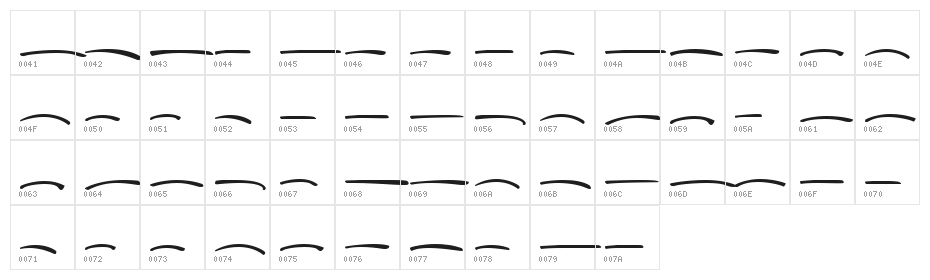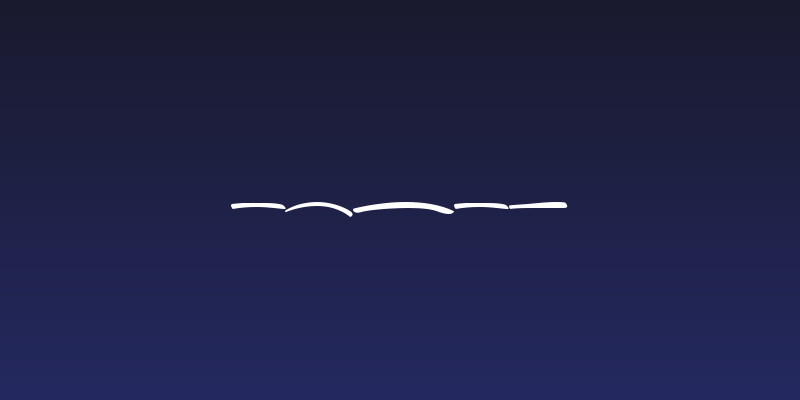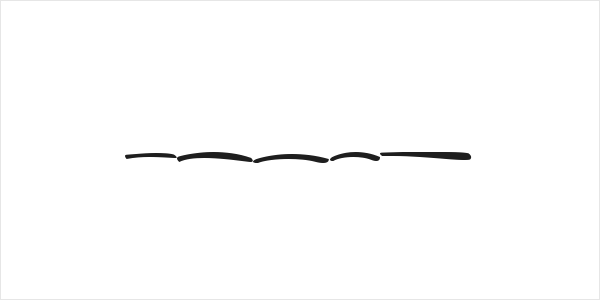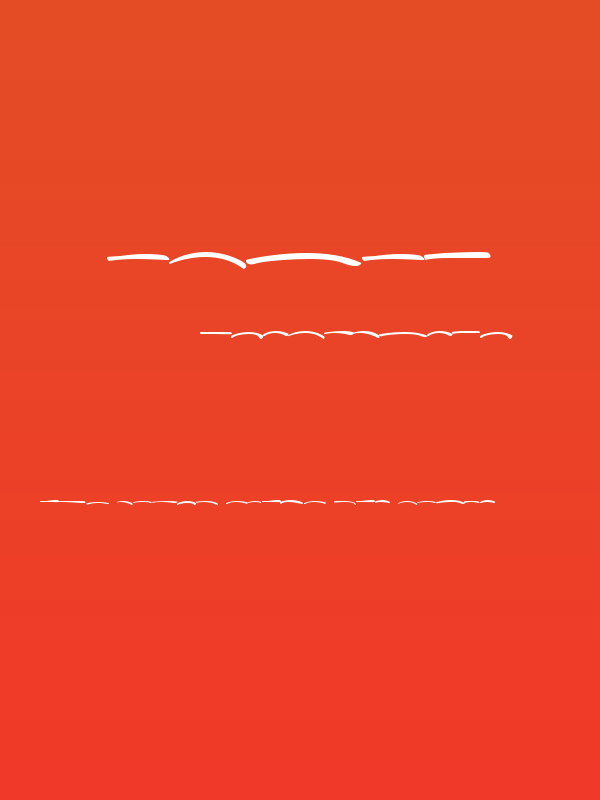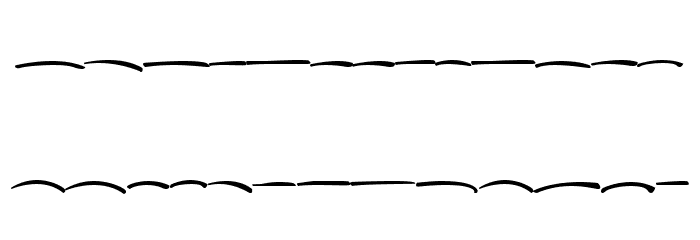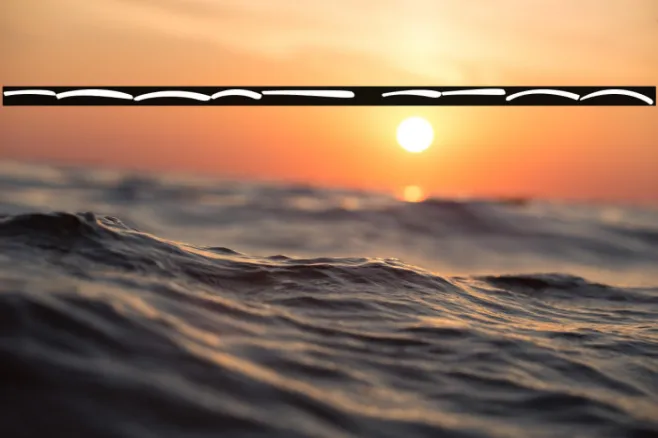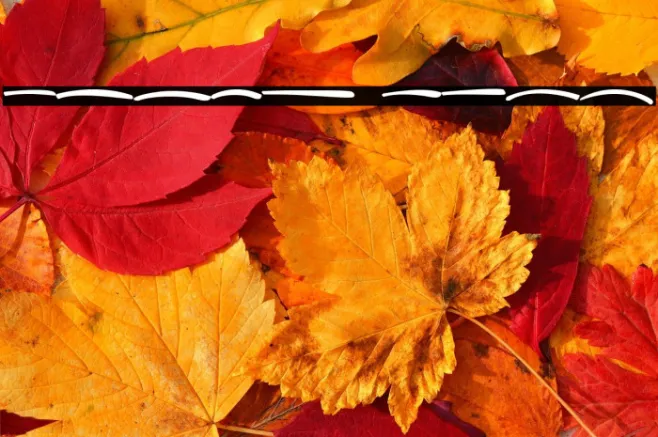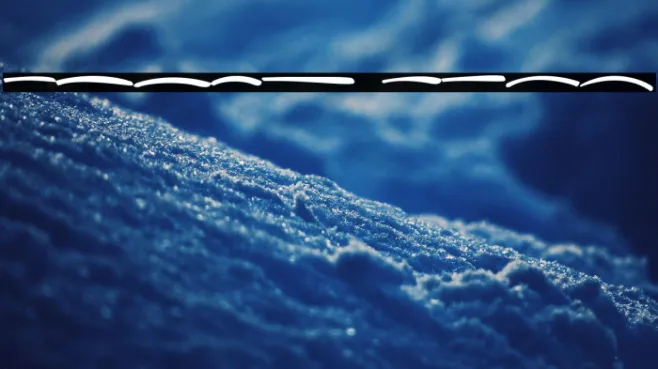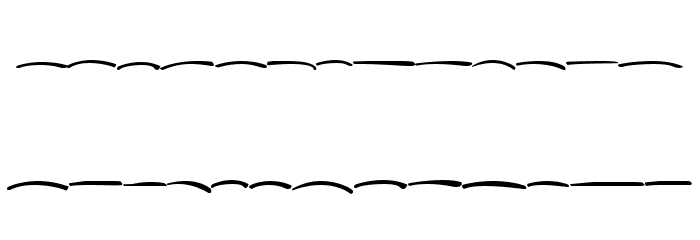
Swash Font
Swash Description
This design features a series of elegant, flowing lines that mimic the appearance of a swash, often used in calligraphy and decorative typography. The lines have a smooth, continuous flow with gentle curves and a consistent thickness, creating a sense of movement and grace. The overall appearance is both artistic and refined, making it suitable for decorative purposes. The design lacks distinct letterforms or characters, focusing instead on the aesthetic quality of the strokes themselves.
| Use Case | Decorative elements, artistic designs. |
| Proposed Projects | Ideal for decorative borders, artistic designs, or as a background element in graphic design projects. |